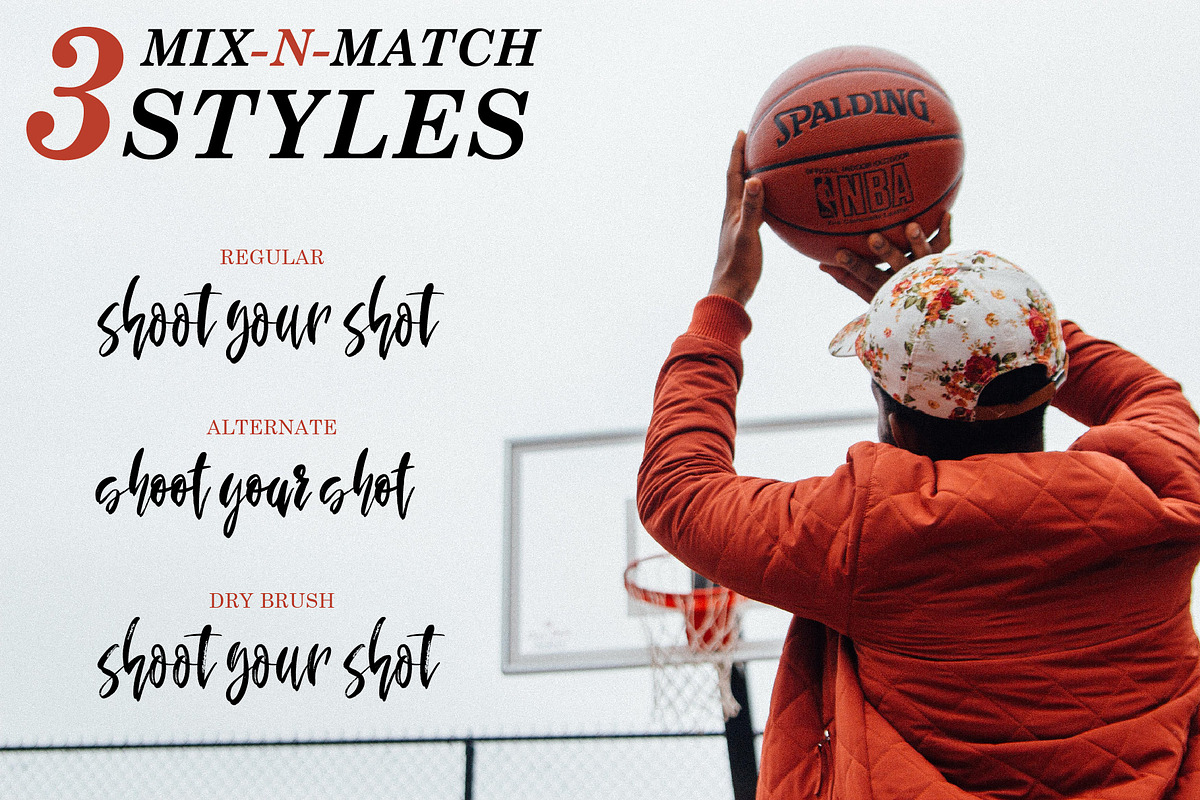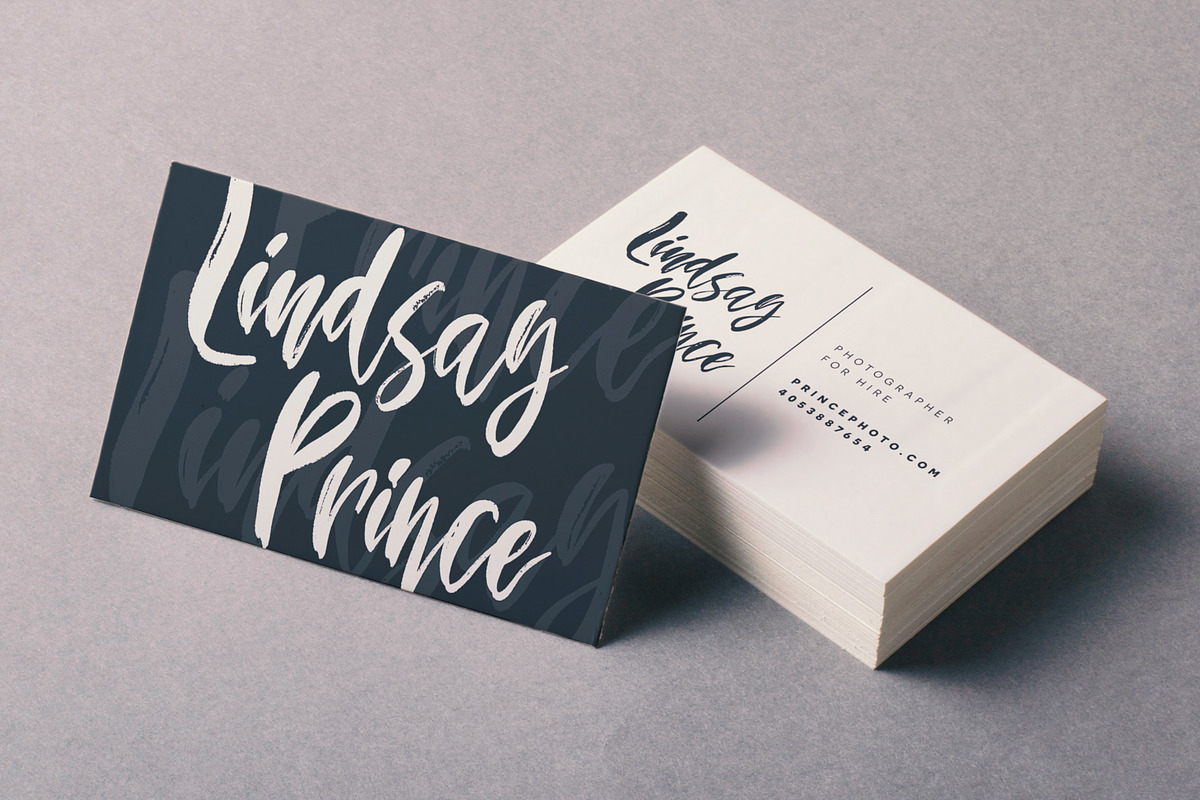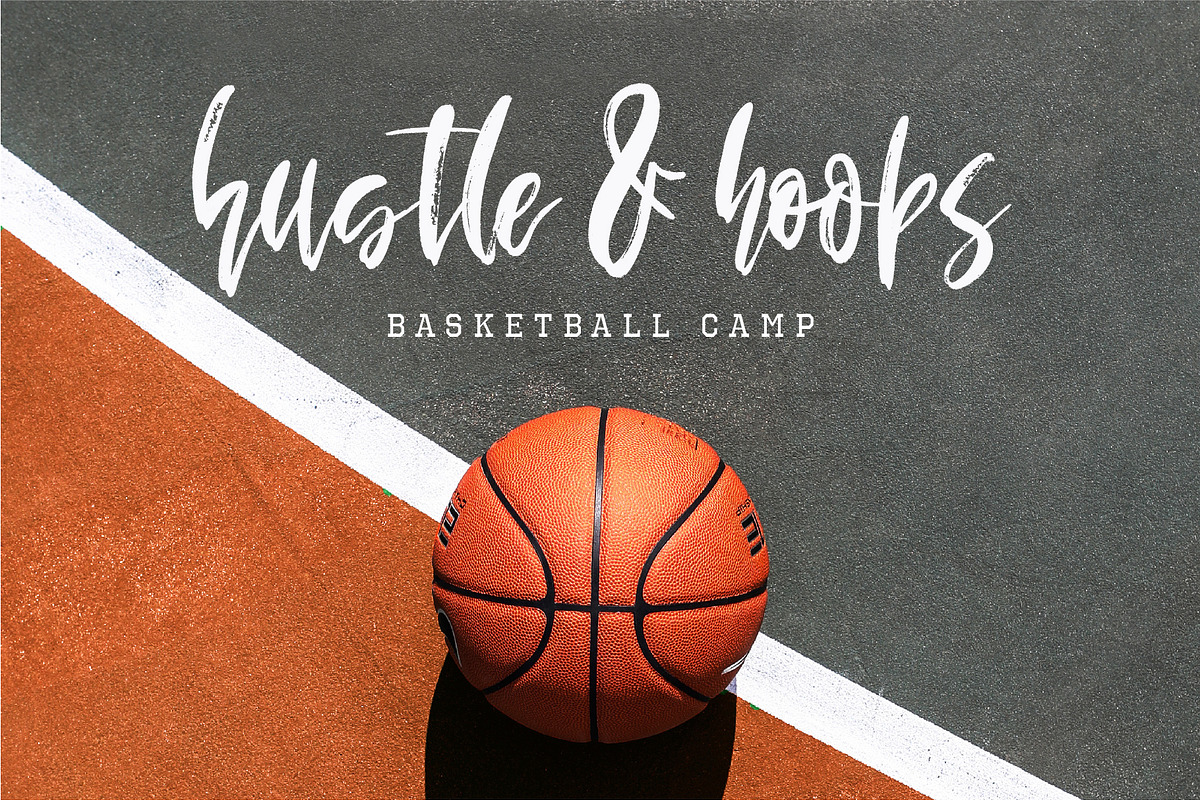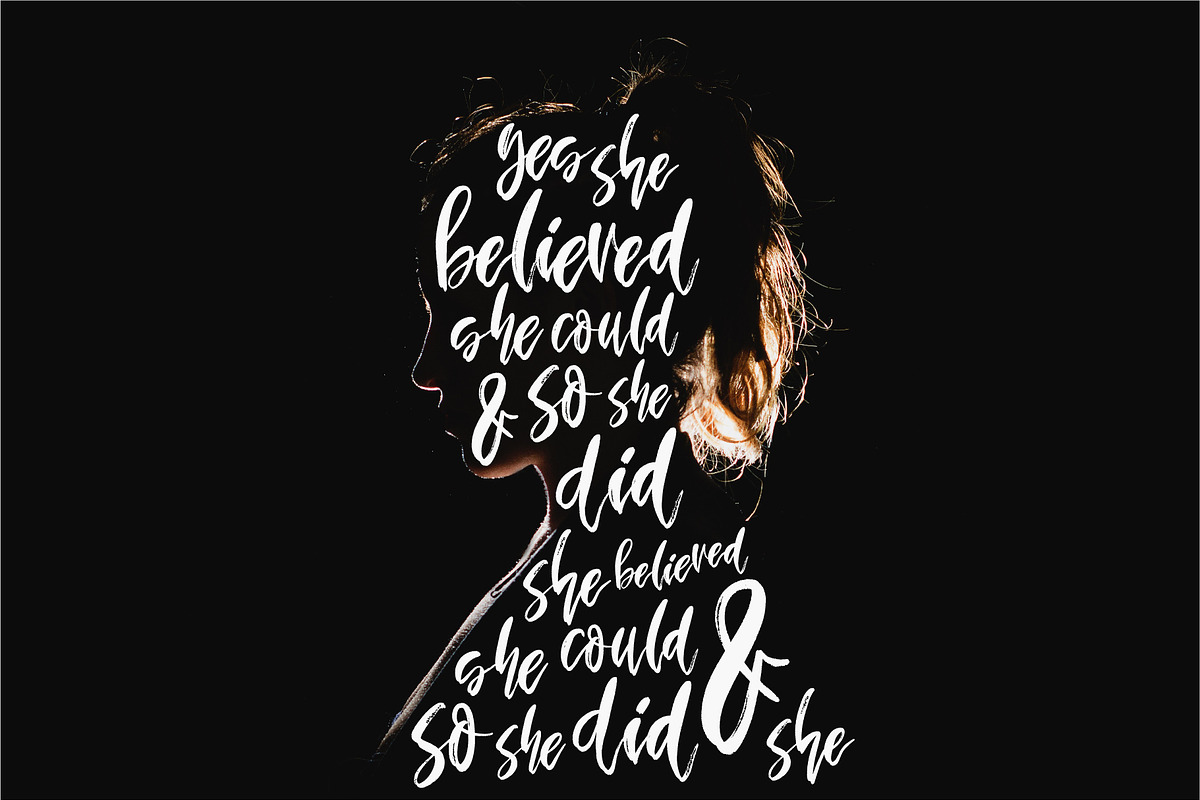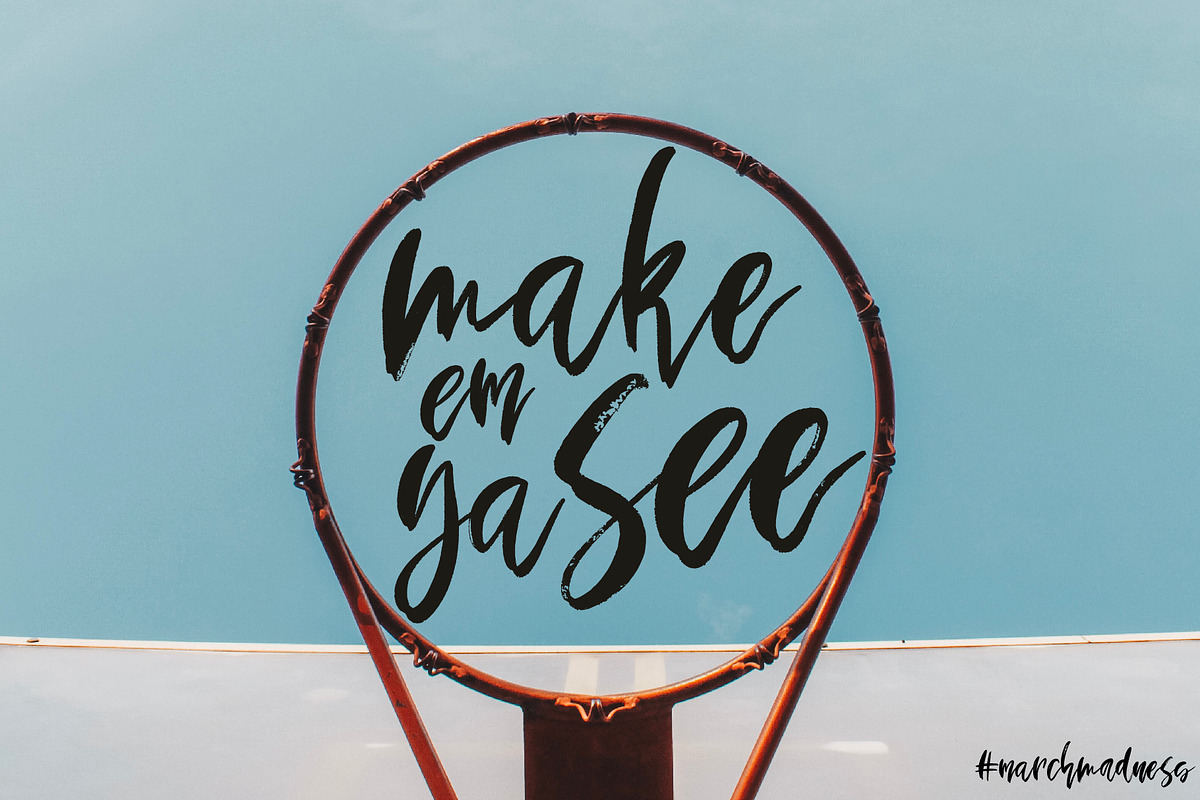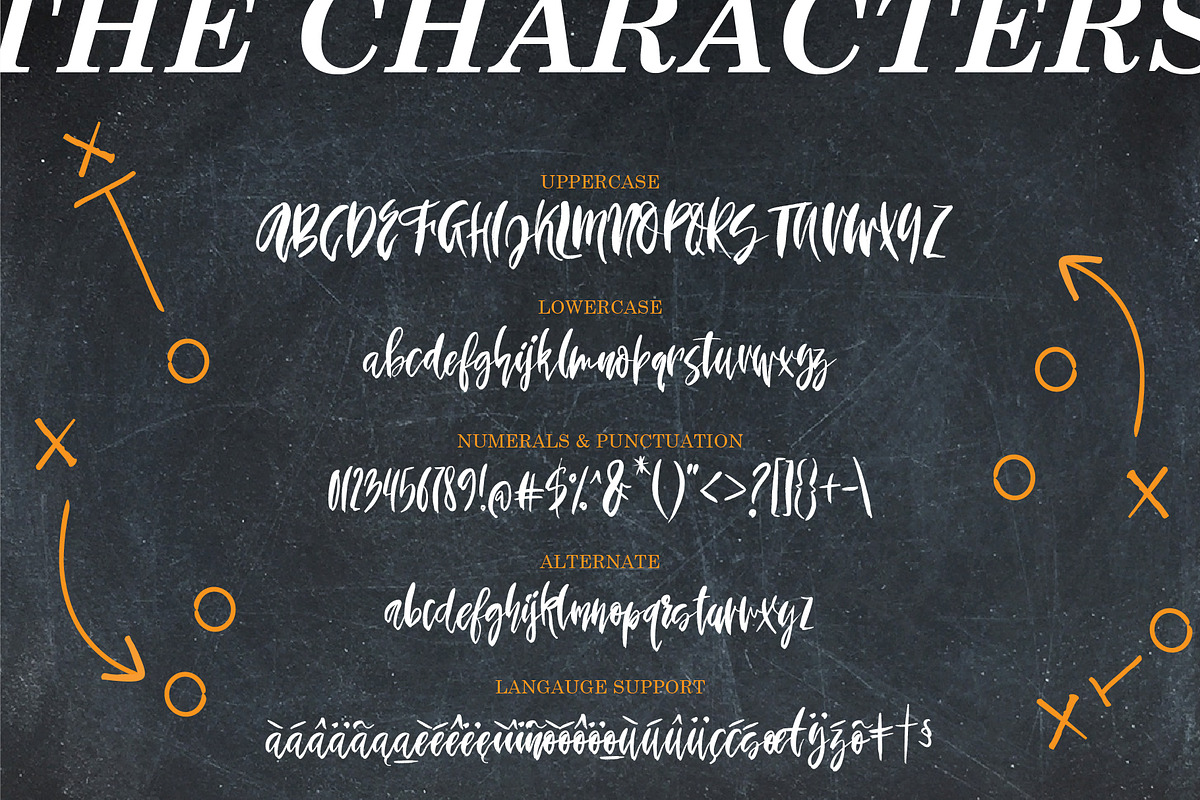
Ringstown Font Pack
Ringstown is an eye-popping dry brush font pack perfect for giving your designs character! Each font included is filled with texture and character. Throw it on a magazine, adverts, business logos, or a party invite and let this typeface do all the work for you. Plus it's filled with tons of opentype feautures such as language support, etc.
Over 100 Bonus Glyphs including International Language Support (English, French, Spanish, German, Polish, Italian, Portuguese, Latin, & More)